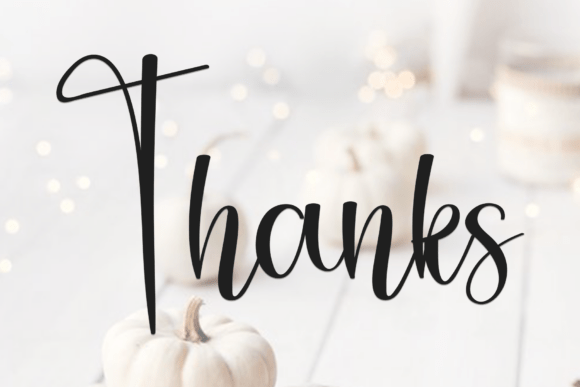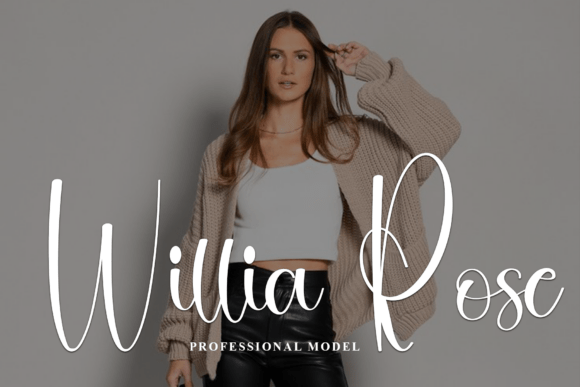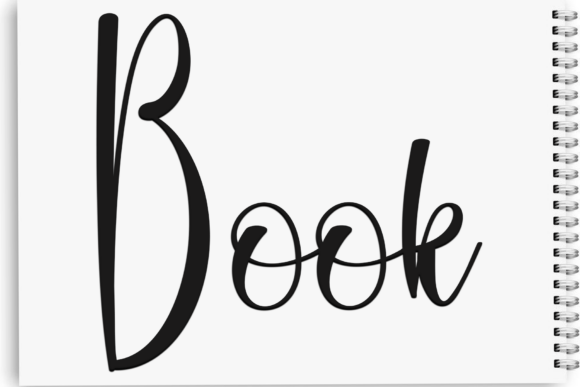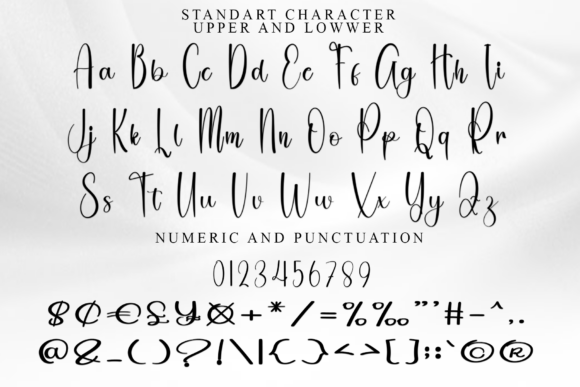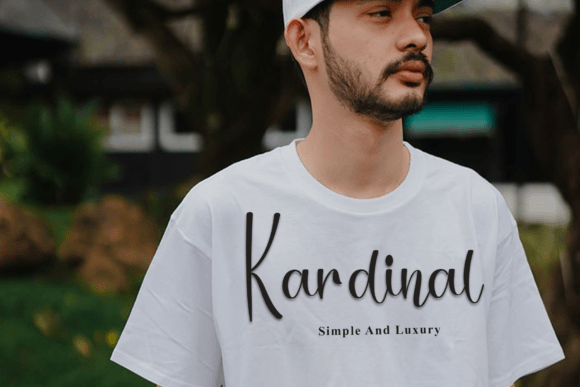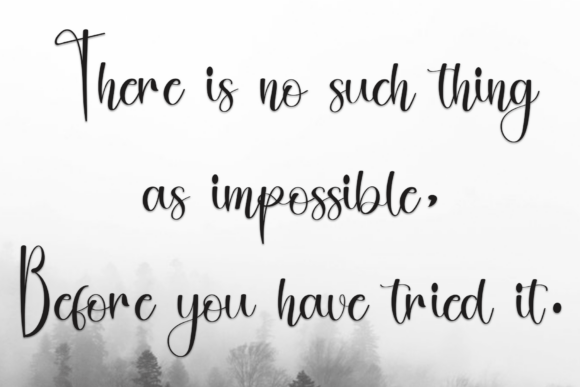
Get Ready to Fall in Love with the Cozy Hello Pumpkin Font
There’s something magical about the first day of fall. The leaves change colors, the air grows crisper, and creativity starts to simmer. As a designer, you know the feeling of getting stuck in a rut, but then stumbling upon the perfect font that sparks a new idea. For me, that font is the Hello Pumpkin Font. Its soft, unique strokes and distinctive character make it a game-changer for any design project.
Whether you’re working on a craft, a design project, or a creative work, the Hello Pumpkin Font is the perfect addition to your toolkit. Its versatility and natural style make it a valuable asset for designers of all levels. With its compatibility across various applications, including Windows and open-source platforms, you can rest assured that your designs will shine.
Hello Pumpkin Font Key Features
- Font Family: Hello Pumpkin Font is a unique, hand-drawn font family designed to evoke a warm and inviting atmosphere.
- Unique Characteristics: Hello Pumpkin Font features intricate details, subtle texture, and a distinctive handwritten feel, making it perfect for autumnal, seasonal, and whimsical designs.
Hello Pumpkin Font Review
Hello Pumpkin Font is a charming and whimsical font that can add a touch of autumnal magic to your designs. ✨ I appreciate how this font effectively captures the essence of fall with its unique blend of vintage and rustic elements. ✨ The font’s irregularities and imperfections give it a warm, handmade feel that can add character to your projects. ✨ The variety of weights and styles available makes it suitable for a wide range of design applications, from invitations to product packaging.
However, I do have a few concerns about the font’s limitations. ⚠️ One of the main issues I’ve noticed is that the font can be difficult to read at smaller font sizes. ⚠️ The irregularities that make the font so charming can also make it challenging to decipher at close range. ⚠️ Additionally, the font’s lack of consistency in terms of line spacing and letterform alignment can make it tricky to work with in certain situations.
Overall, I think Hello Pumpkin Font is a great choice for designers who want to add a seasonal touch to their projects. While it may have some limitations, its unique character and versatility make it a worthwhile addition to any design library.
- Perfect for autumnal or fall-themed designs
- Unique blend of vintage and rustic elements
- Variety of weights and styles available
- Charming, handmade feel
Hello Pumpkin Font Practical Application Guide
The Hello Pumpkin Font is ideal for:
Seasonal designs, such as Halloween or Thanksgiving-themed graphics.
Food-related designs, such as bakery or restaurant logos.
Children’s products, such as toys or clothing.
Any design that requires a playful, whimsical touch.
Alternatives to Hello Pumpkin Font for Designers
Alice
Alice is a elegant script font suitable for invitations, weddings, and other special occasions. It has a more refined and sophisticated look compared to Hello Pumpkin Font. Alice is ideal for designers who want to create a classic and timeless feel in their designs.
Comparison to Hello Pumpkin Font: Alice has a more subtle and refined design, whereas Hello Pumpkin Font is more playful and rustic.
Great Vibes is a beautiful and elegant script font perfect for creating a luxurious and high-end feel in designs. It has a more modern and sophisticated look compared to Hello Pumpkin Font. Great Vibes is ideal for designers who want to create a premium and exclusive feel in their designs.